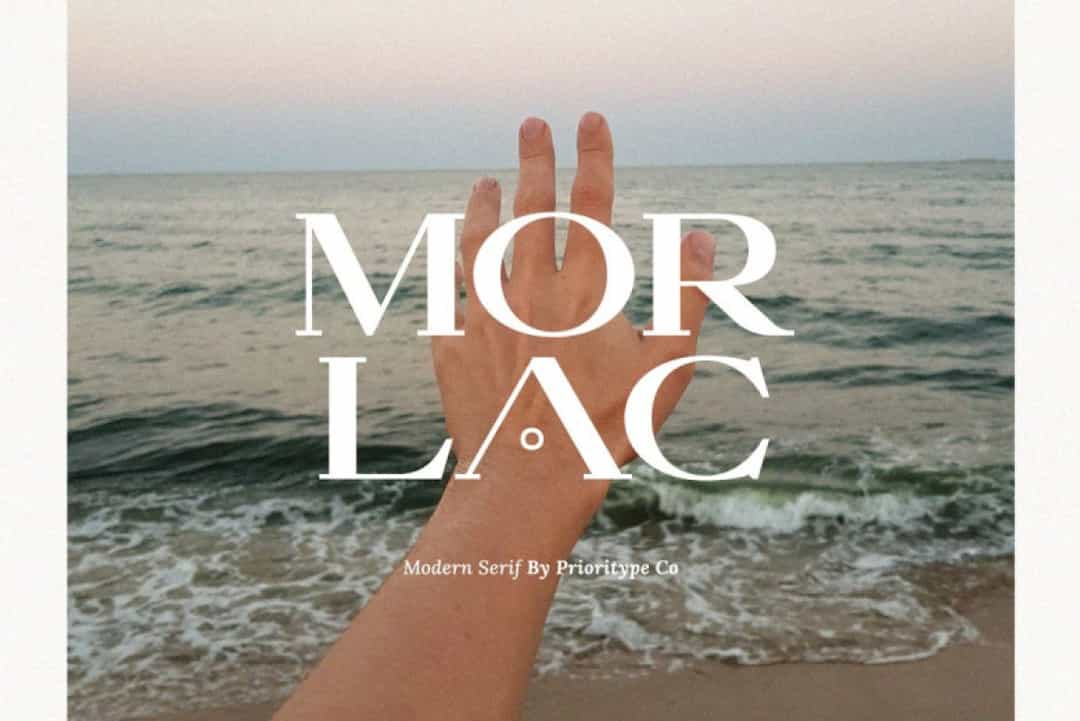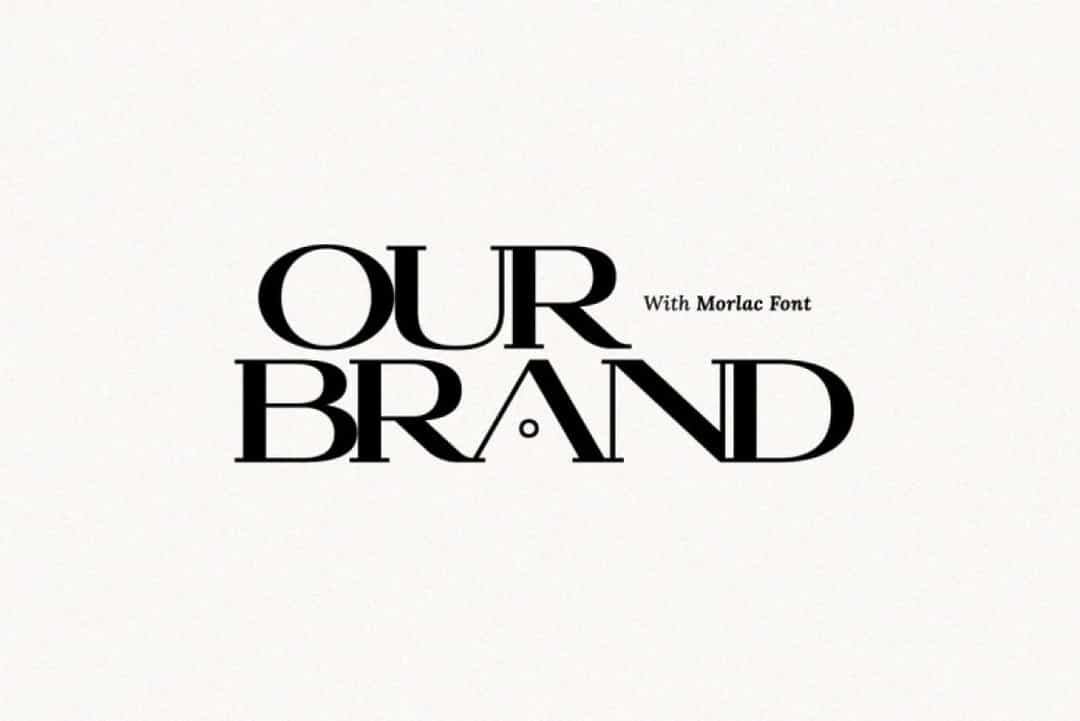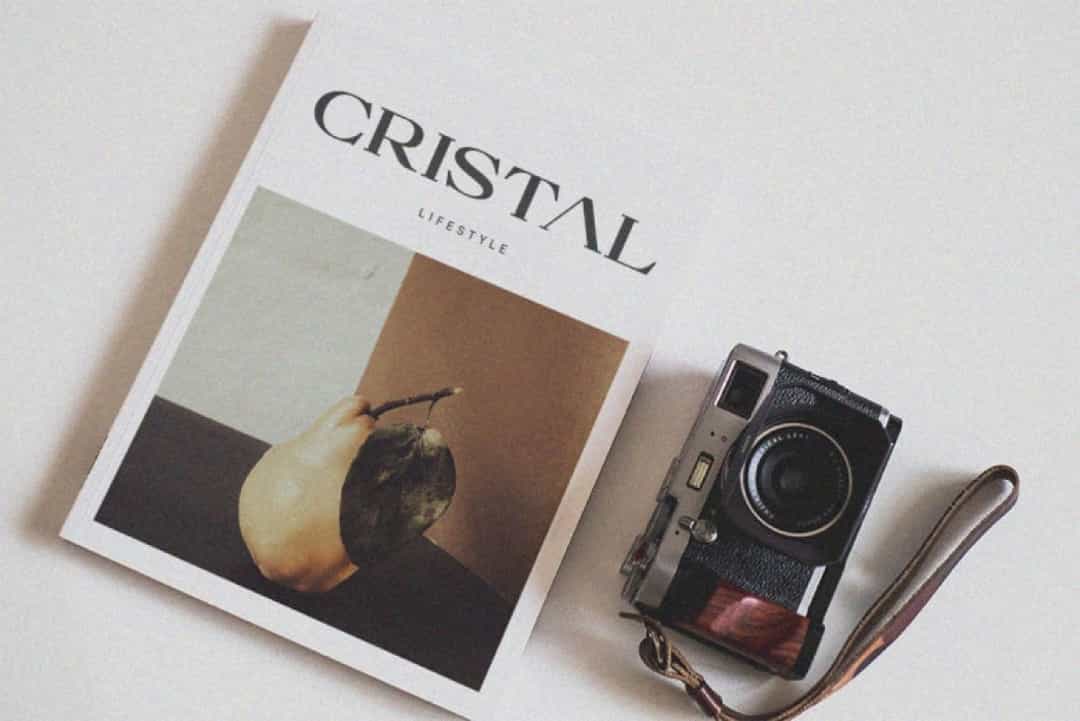
Morlac is an all-caps font with luxurious qualities that makes an impressionful statement about its use, perfect for logos, branding designs and headlines. There are some variations among certain letters such as A, E, F and Q for added interest and variation. It can also be customized using style settings for logos that include this font family.